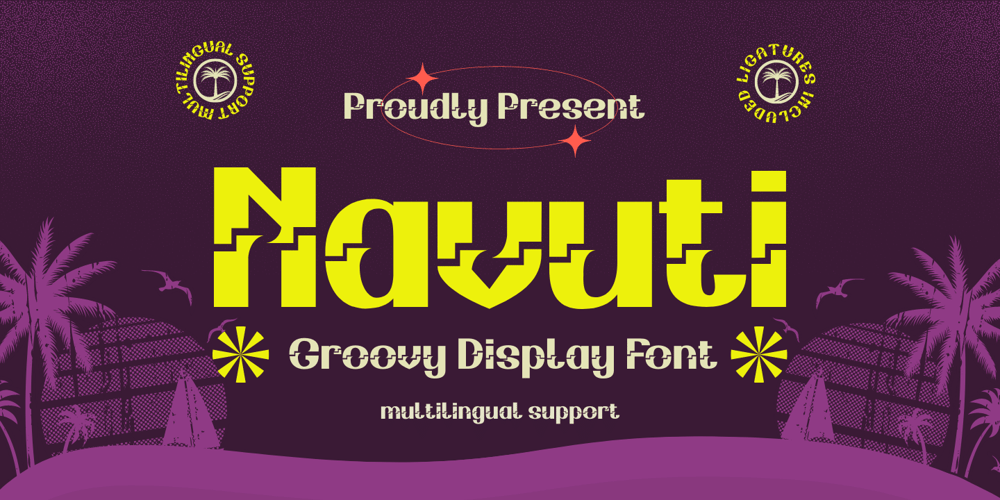
Navuti Font Family was designed by Rozikan and published by Twinletter. Navuti contains 1 styles and family package options. Introducing a Groovy font called Navuti. The Groovy Font is a bold and fun typeface. It is the ideal font for all your design requirements, such as branding, product packaging, or even just to add a touch of flair to your editorial work. This fine font features a contemporary design with a unique shape that will add elegance to any design. Incorporate Groovy Fonts into your designs right away! What’s Included : Standard glyphs Iso Latin 1 Simple installations We highly recommend using a program that supports OpenType features and Glyphs panels like many Adobe apps and Corel Draw, so you can see and access all Glyph variations. PUA Encoded Characters – Fully accessible without additional design software. Fonts include Multilingual support